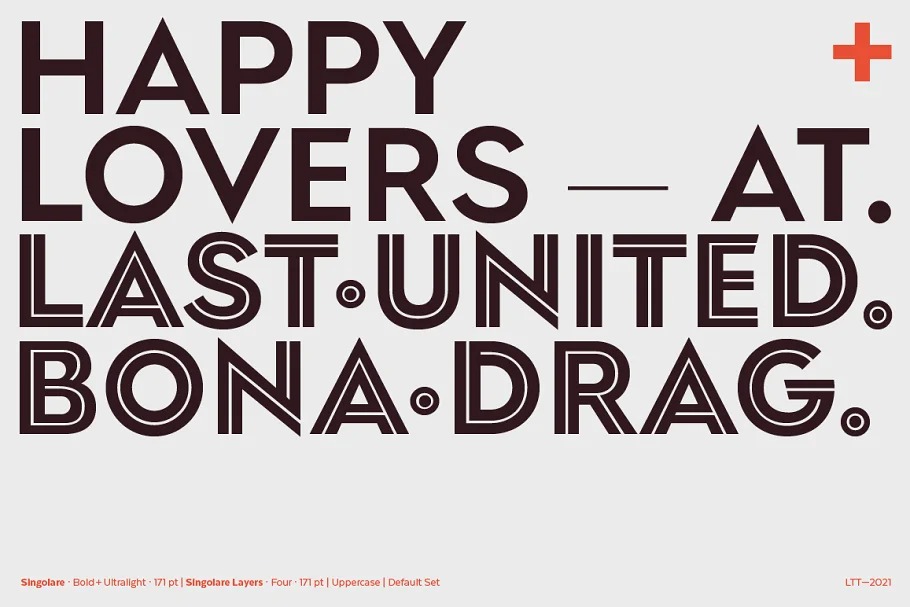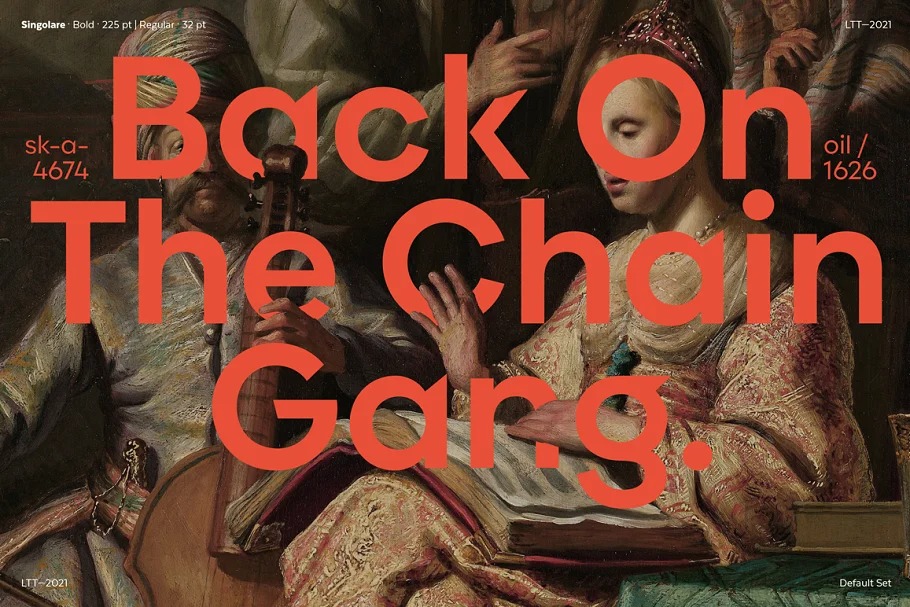
Singolare Font
Singolare Sans Serif Font
This font is a semi-formal sans-serif type family. The family has a crisp contemporary appearance and an understated elegance. This font’s primary characteristic is the difference in styles between weight. As it gains weight, it gains singularity.
The variety of weights, styles and layers makes this the perfect font for displays and short texts that need major visual impact. Singolare comes with five weights from Ultralight to Black, each weight with its own stencil version and expressive cuts, as well as four decorative versions: three outline versions and one inline version. They can work alone or layered with the normal black version and the ability to change colors in each layer, thus expanding the possibilities of use.